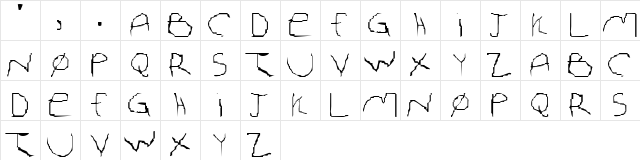
I Think Im Turning Japanese Regular
Design Context for I Think Im Turning Japanese Typeface
I Think Im Turning Japanese is a composed and adaptable typeface that performs quietly and consistently across a wide range of design contexts. Its slender proportions lend an understated elegance to any composition.